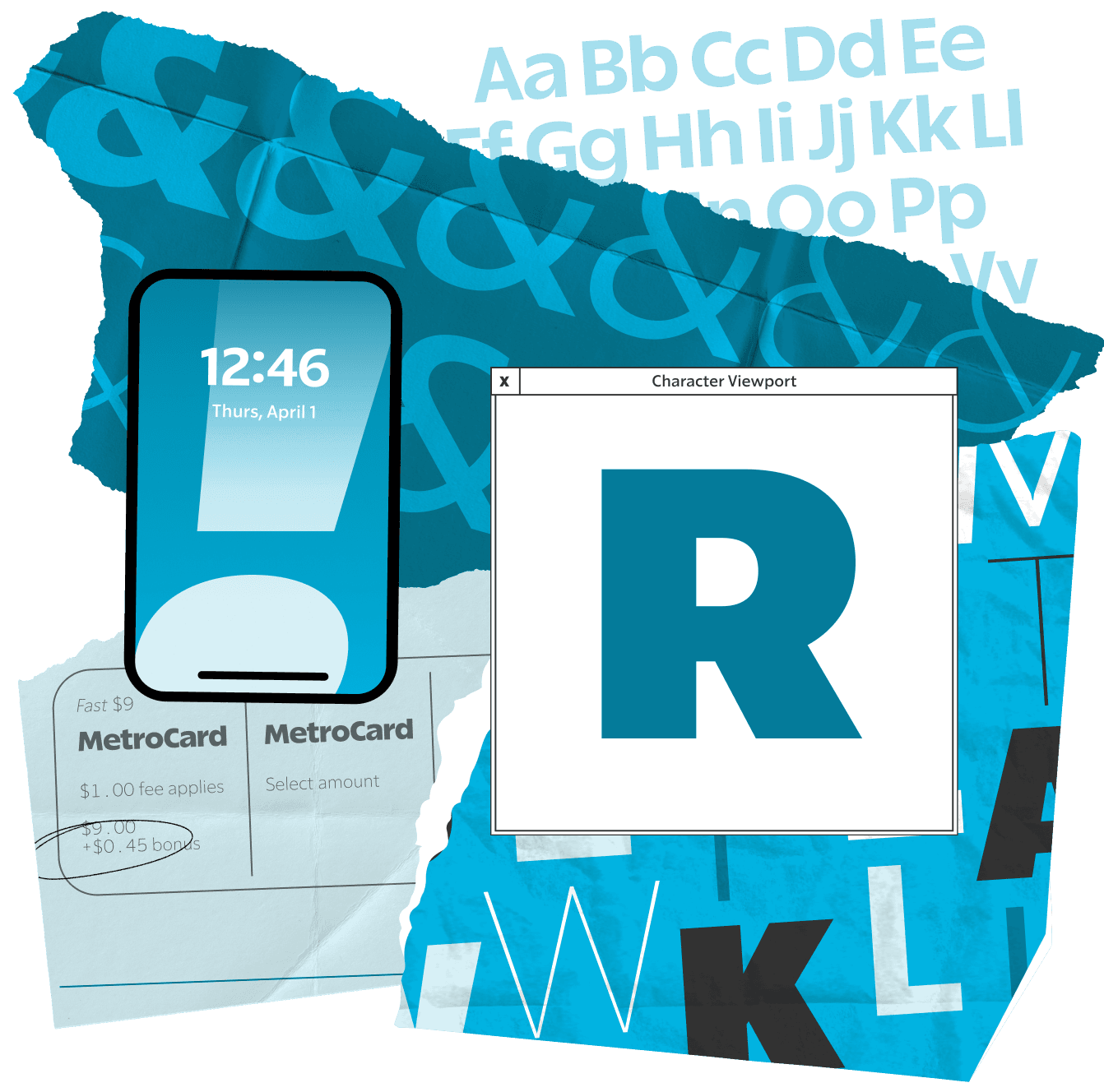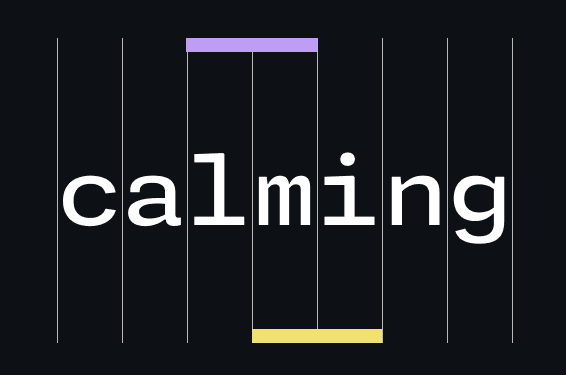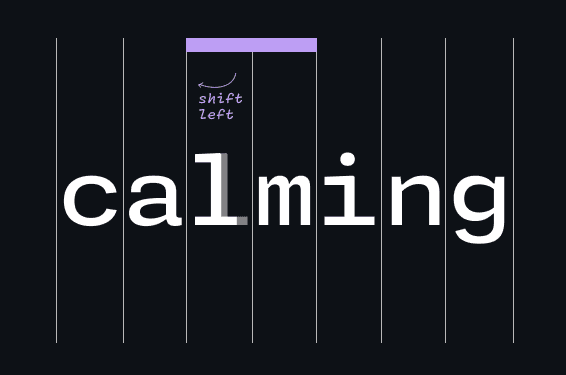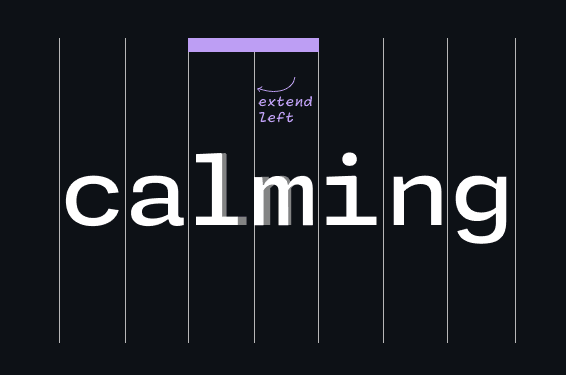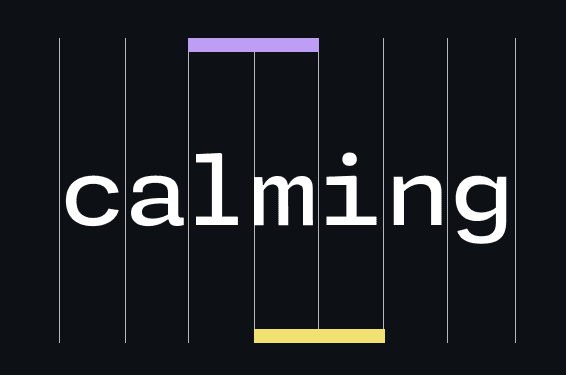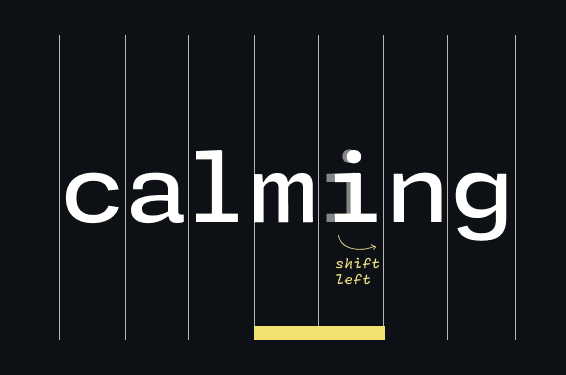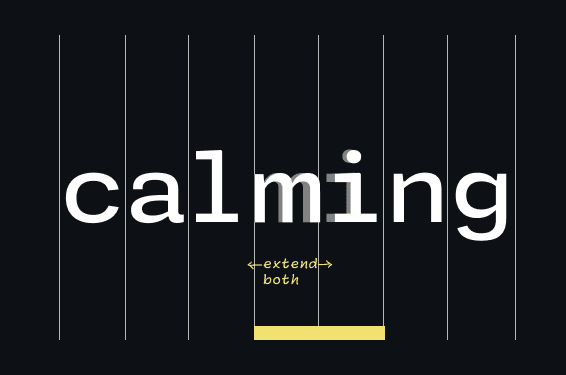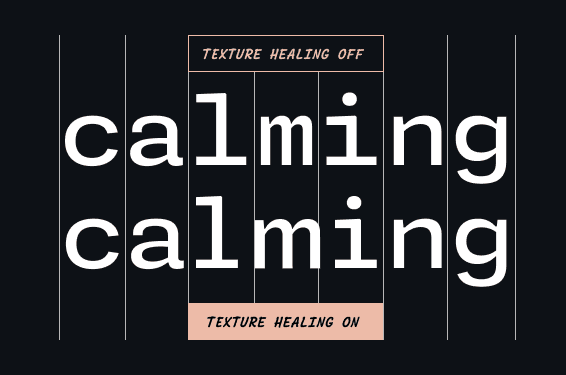
A LETTERMATIC CASE STUDY
By Riley Cran
Typeface designers are toolmakers, and every catalog of type needs a sans serif. We wanted to make one with a lot of utility, inspired heavily by the way that designers have used sans serifs over the last 100 years. Sometimes a typeface can feel like it ‘appears on a shelf’ somewhere, ready to be hammered into shape until it adapts to the intended application. The team at Lettermatic wanted to make a sans serif that felt, out of the box, like it was made for the typesetting needs of a modern designer — for modern outlooks on typesetting that fall into disciplines like brand and product, as well as for disciplines like advertising and editorial layout.
All of these features just add a tiny little bit of legibility, maybe a couple times in a word or a handful of times in a line. This makes some of the things that were hardest to read before just a little bit more legible, and that makes a considerable difference when you're looking at hundreds or thousands of characters on your screen at once. Typesetting code is also an environment where swiftly and correctly identifying a particular glyph is extremely important, probably more important than it is in many other kinds of typesetting. Giving the readers just that much of an extra boost towards discerning the identity of these individual characters lends itself to a rhythm and texture of code that feels a little calmer and easier to follow.
Google Developers provides a variety of resources, including documentation, tutorials, code samples, and support forums, to help developers build applications that integrate with Google services. Additionally, Google Developers hosts events such as hackathons, developer conferences, and code labs to bring developers together and foster collaboration. When I see a list like this, I begin thinking of how much typesetting is involved in these pursuits, and how a type family might be made to help the talented folks at Google Developers speak to their wonderful community. In addition to these resources and events, they also cultivate and support developer communities around the world.